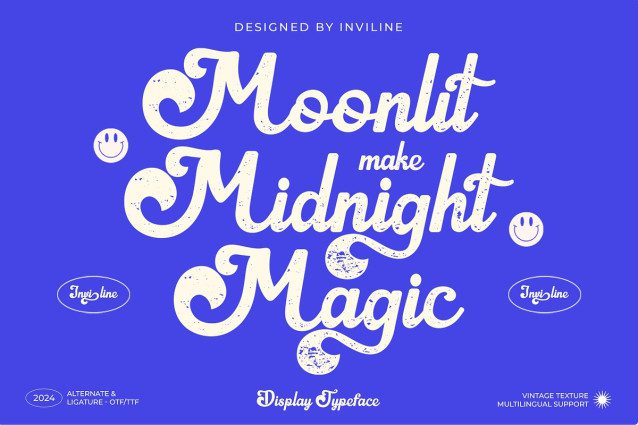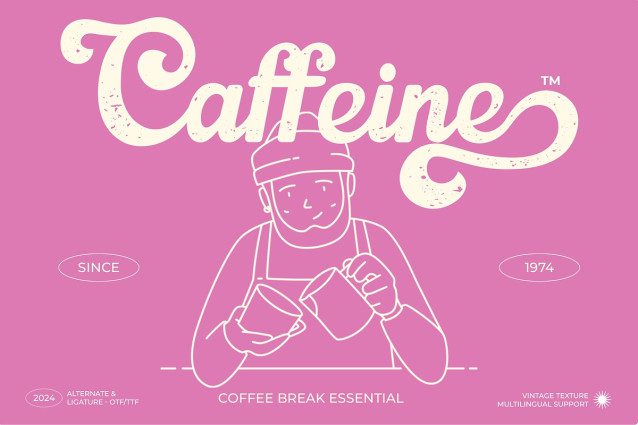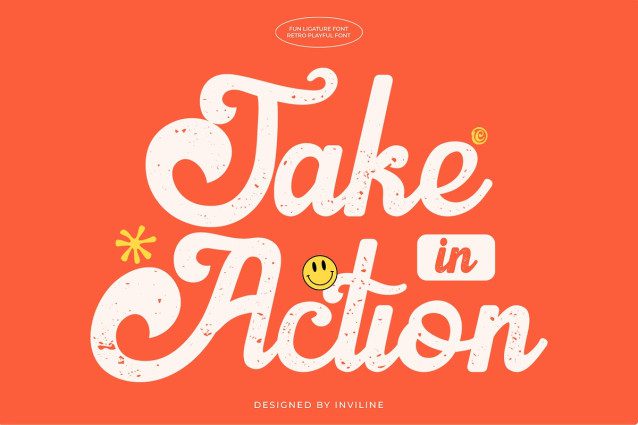
Agatha Louis Font
Agatha Louis Font is a retro script font that brings a playful, textured, and nostalgic vibe to your designs. With bold swashes, handcrafted ligatures, and a naturally aged texture, this typeface channels the warmth of vintage lettering with a modern twist. Perfect for projects that need personality, charm, and a touch of retro funk — from logos to packaging and apparel designs.